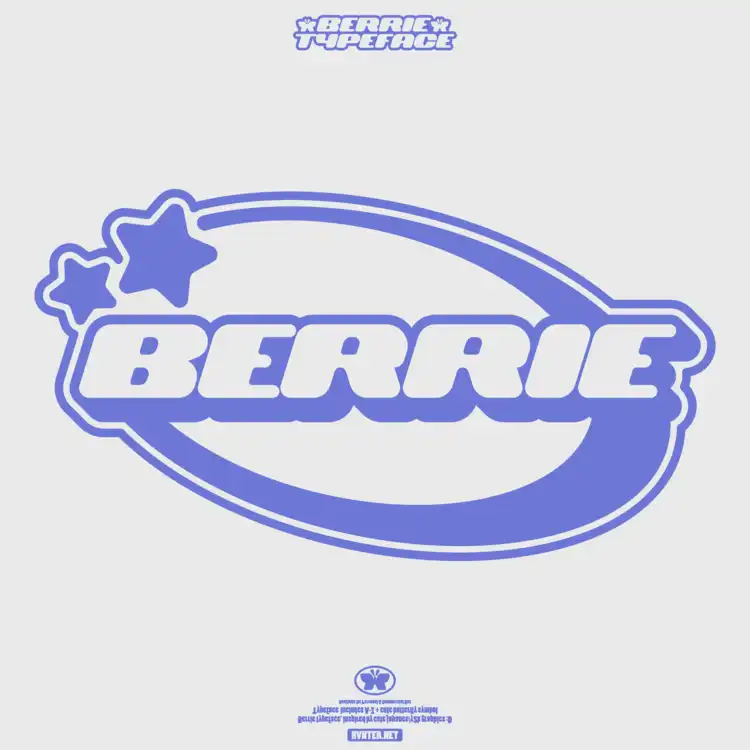
Introducing the Berrie Typeface! 🎉 This delightful digital download offers instant access to a cute Y2K-inspired typeface, perfect for creating soft and fluffy logo designs that will make your projects pop! ✨ Whether you’re designing for personal projects or commercial use, the Berrie Typeface is here to add a touch of whimsy to your creative endeavors.
The Berrie Typeface is a charming font that captures the essence of playful creativity. With its rounded edges and friendly appearance, this font is ideal for anyone looking to add a fun twist to their designs. Perfect for branding, invitations, and more, it’s a versatile choice that will bring your ideas to life! 🌈
- Complete Character Set: Includes A-Z, 0-9, and basic symbols, giving you everything you need for your designs.
This typeface is a fantastic choice for graphic designers, brand creators, and anyone looking to design playful materials. Whether you’re crafting logos, posters, or social media graphics, the Berrie Typeface will make your work shine! 🌟